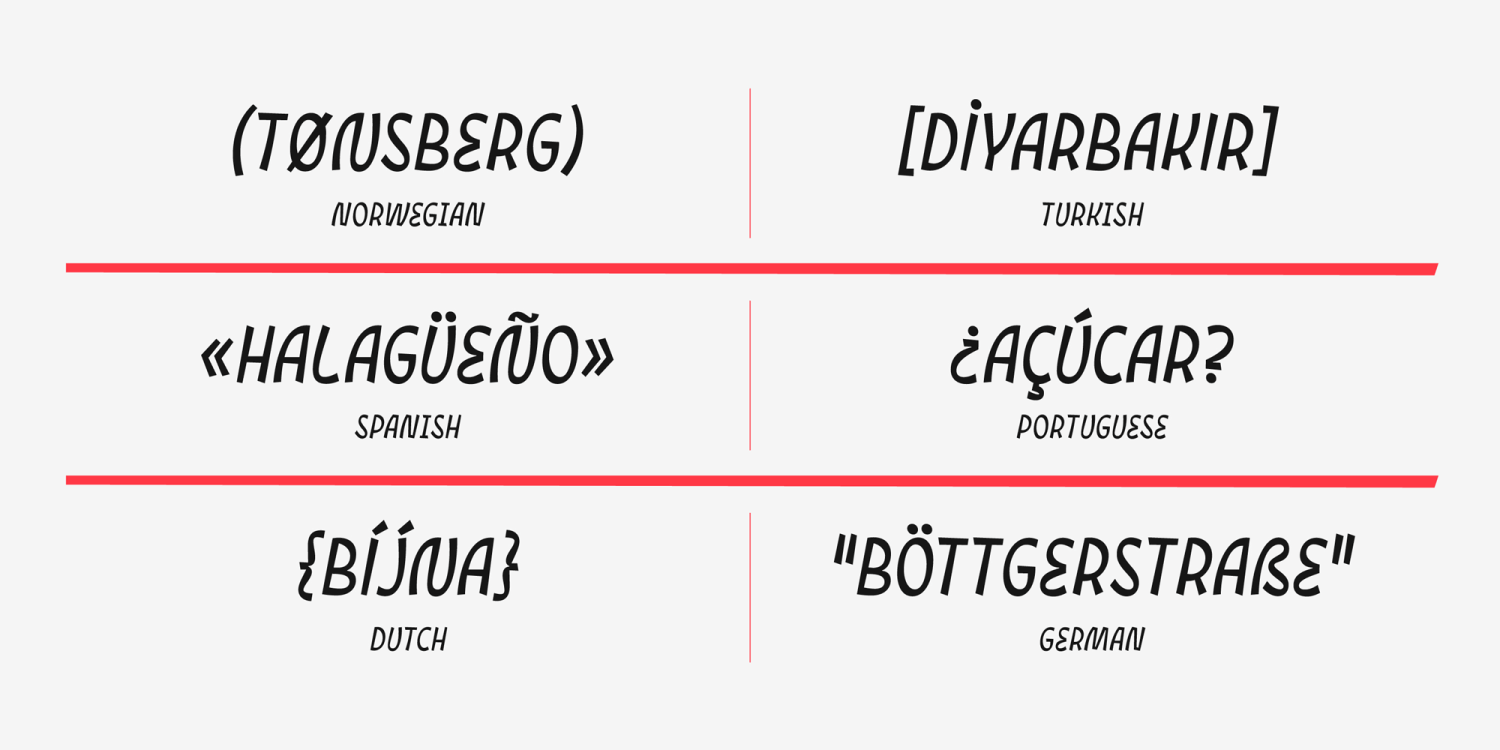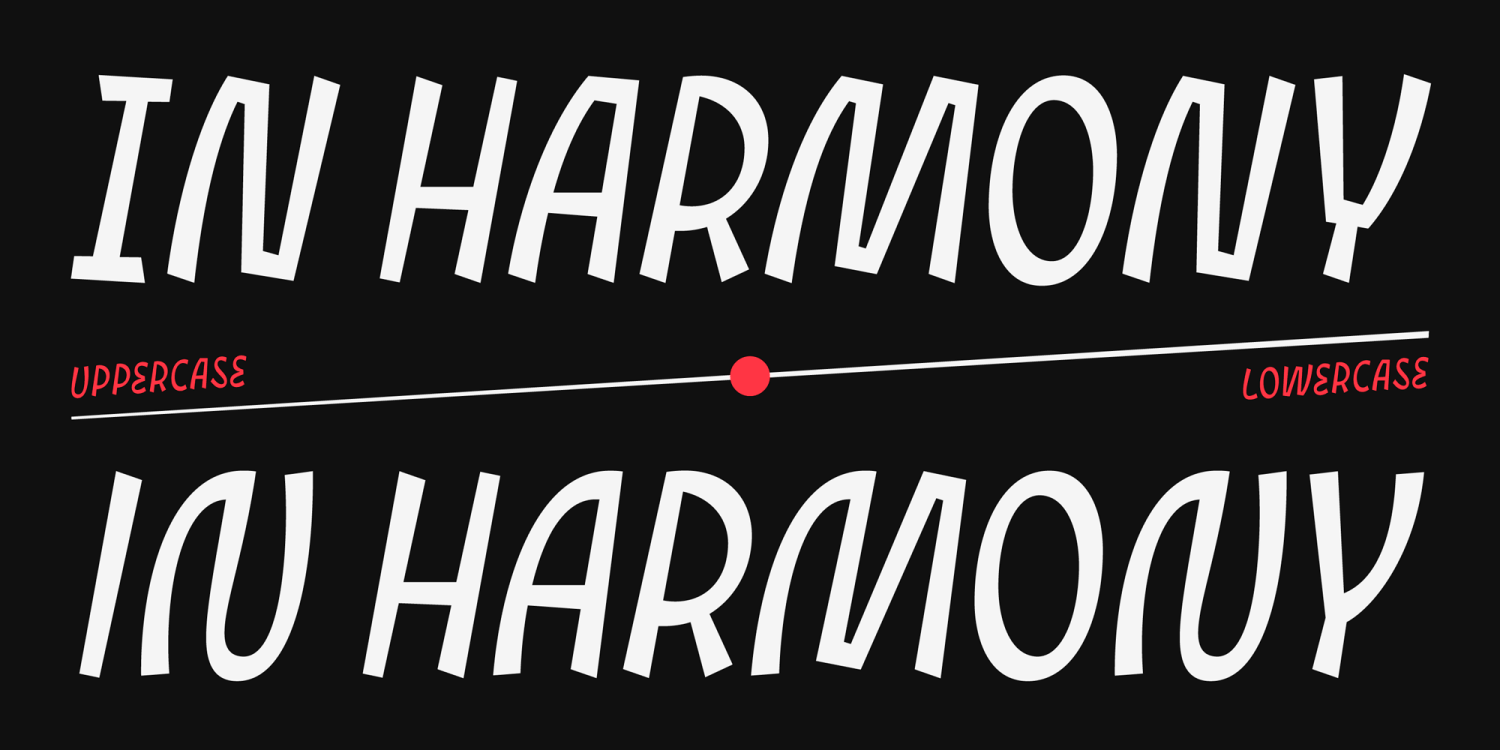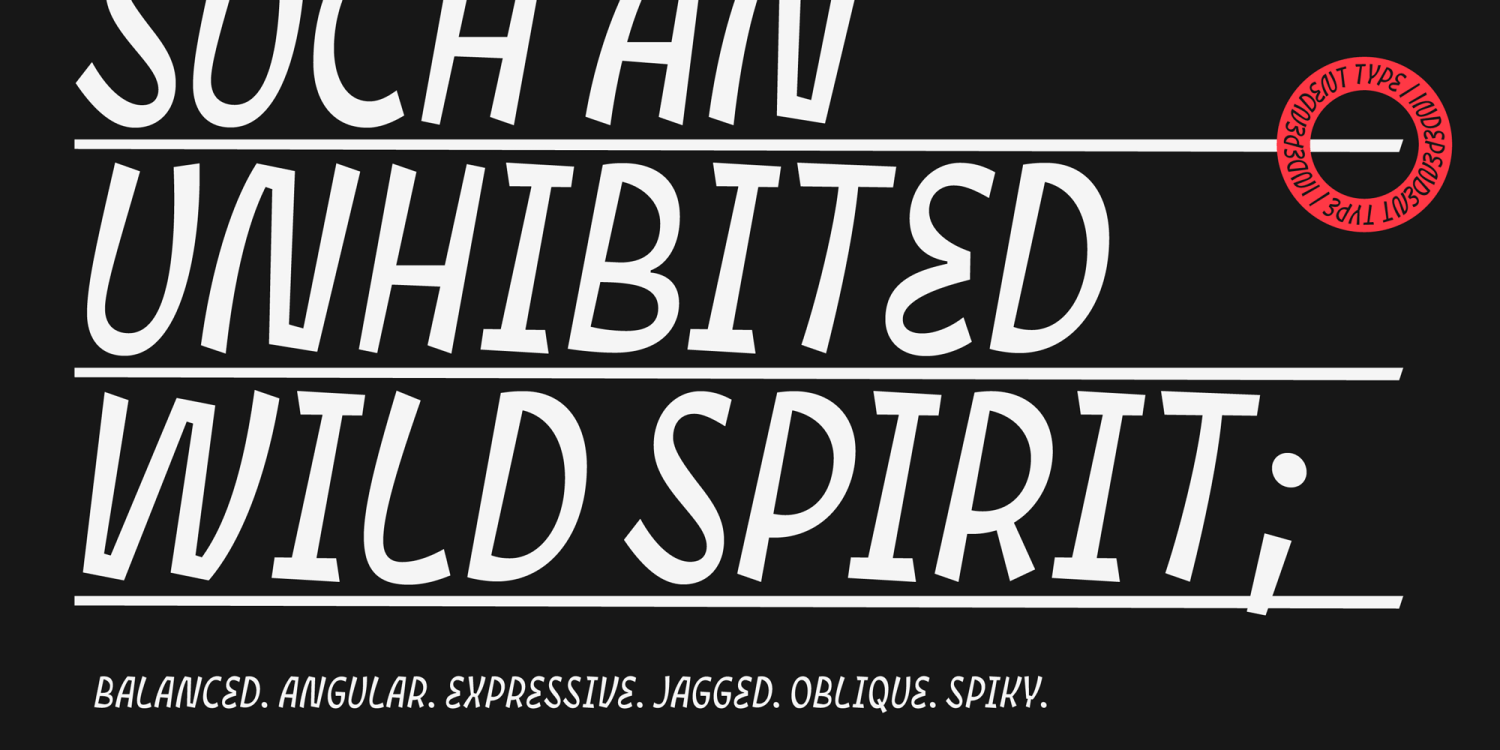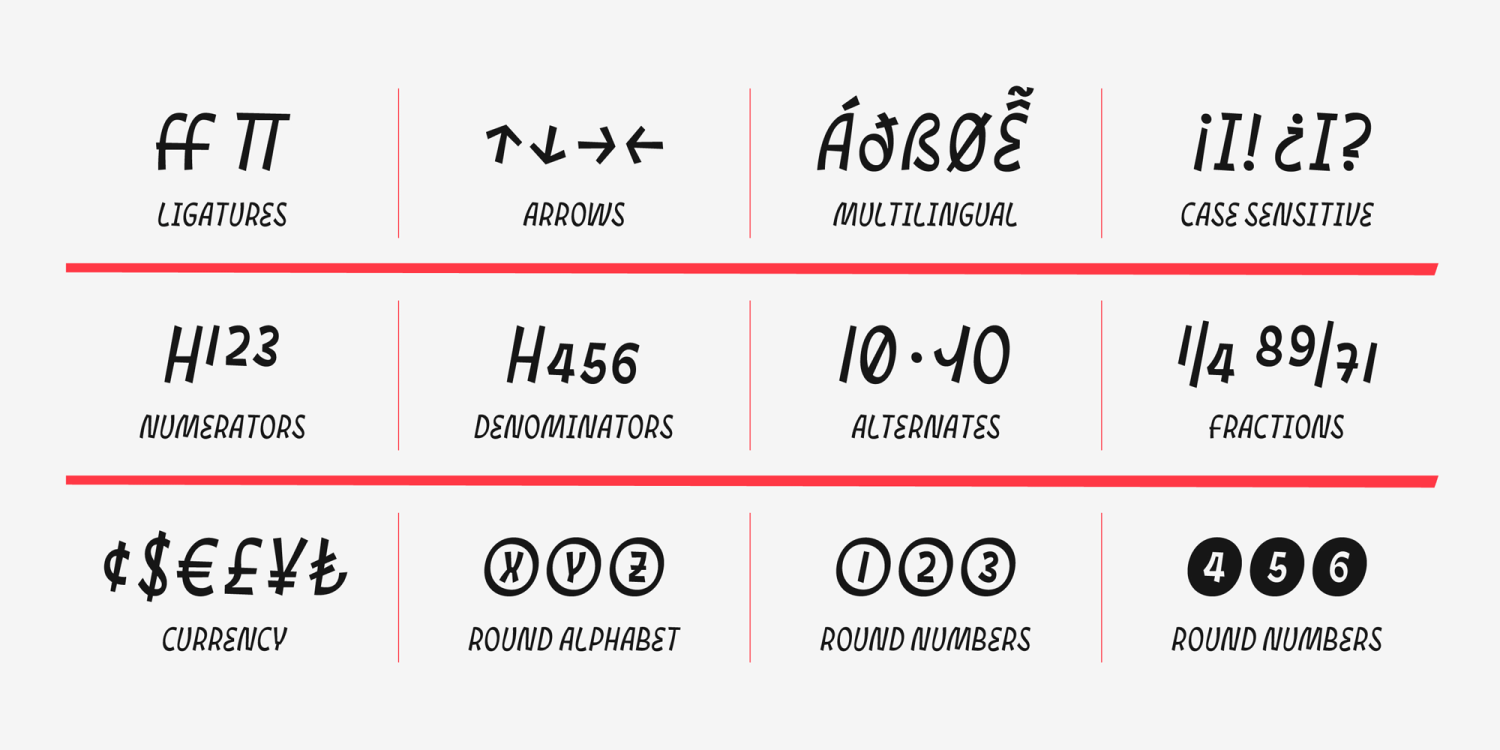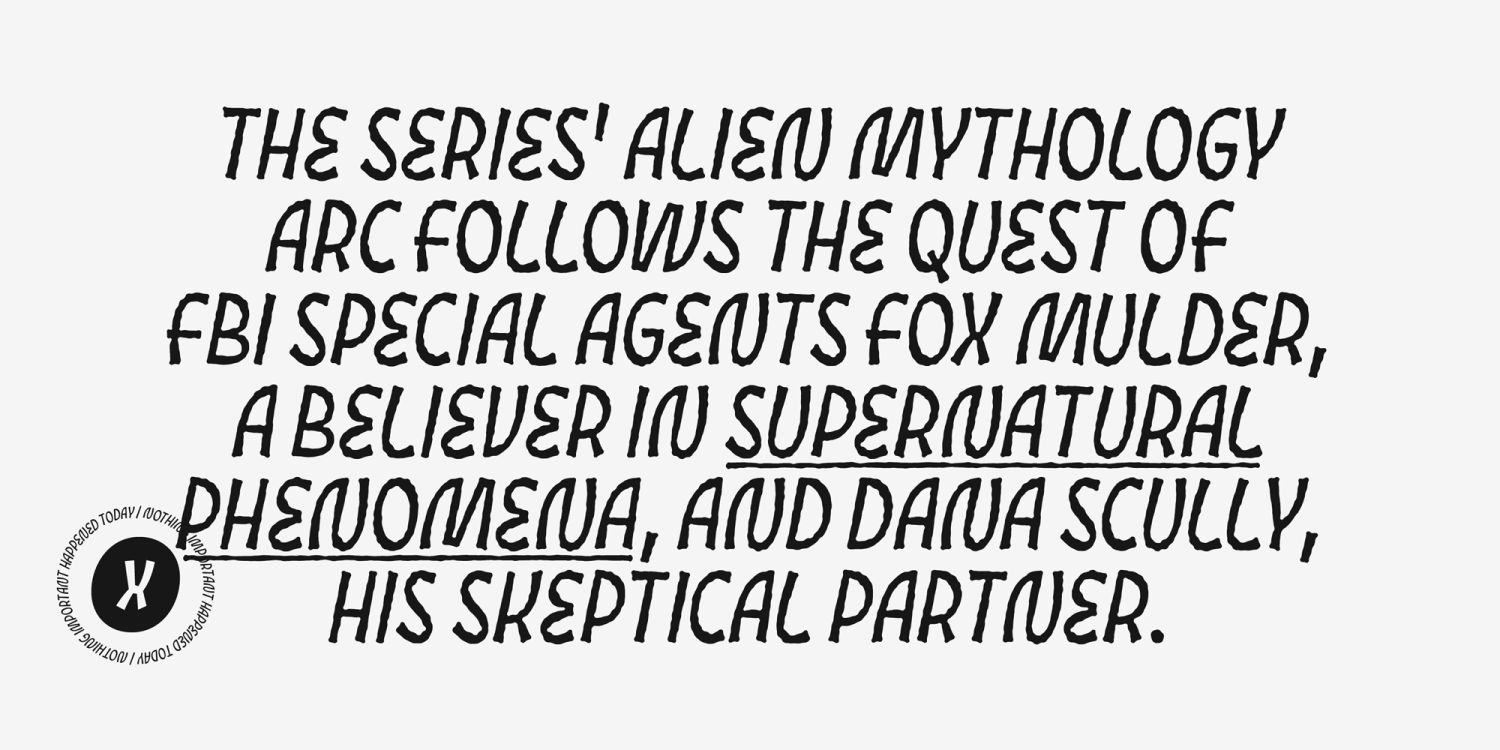
About Cumbre
Cumbre is a slanted display type with unorthodox anatomy, a dynamic rhythmic structure, movement expression, and intense visual language. An eccentric rebel with ribbon-like moves, a balanced extrovert that makes meticulous use of ink traps. Both the…